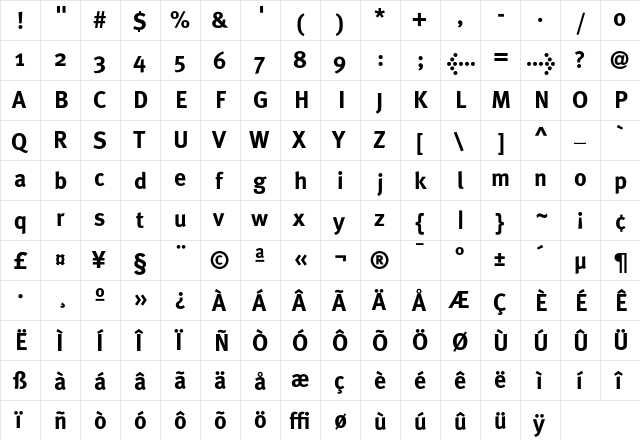
MetaPlusBold- Regular
| Foundry | Copr. Erik Spiekermann |
Design Context for MetaPlusBold- Typeface
MetaPlusBold- offers clean, dependable letterforms without strong stylistic allegiance, making it a practical choice for designers who need flexibility. Its bold stroke weight gives it real presence on the page.